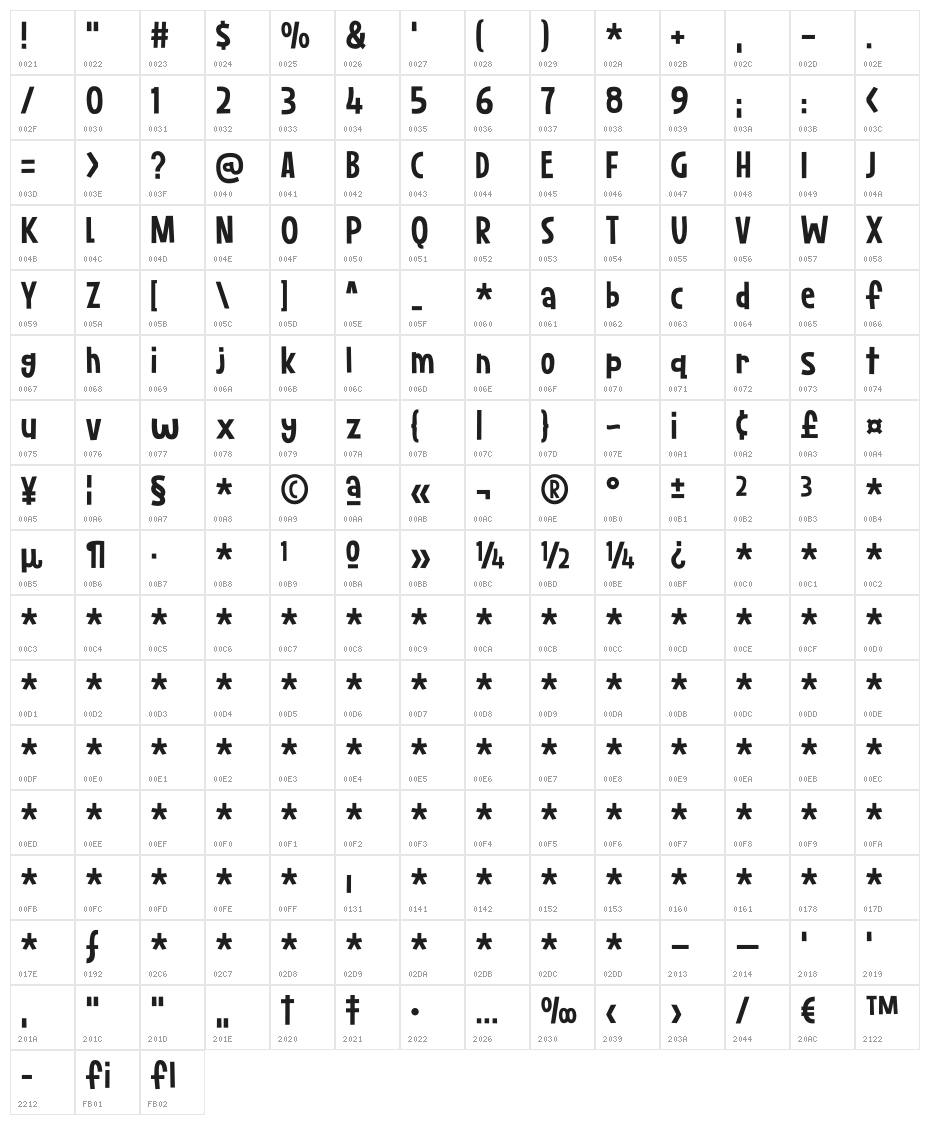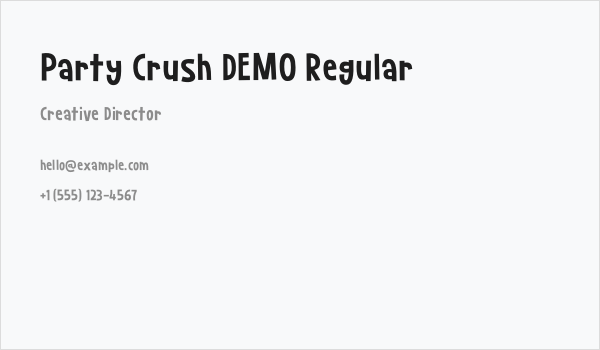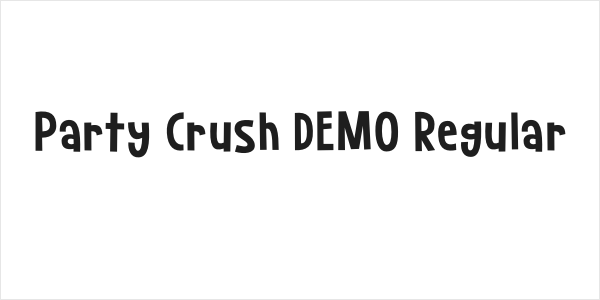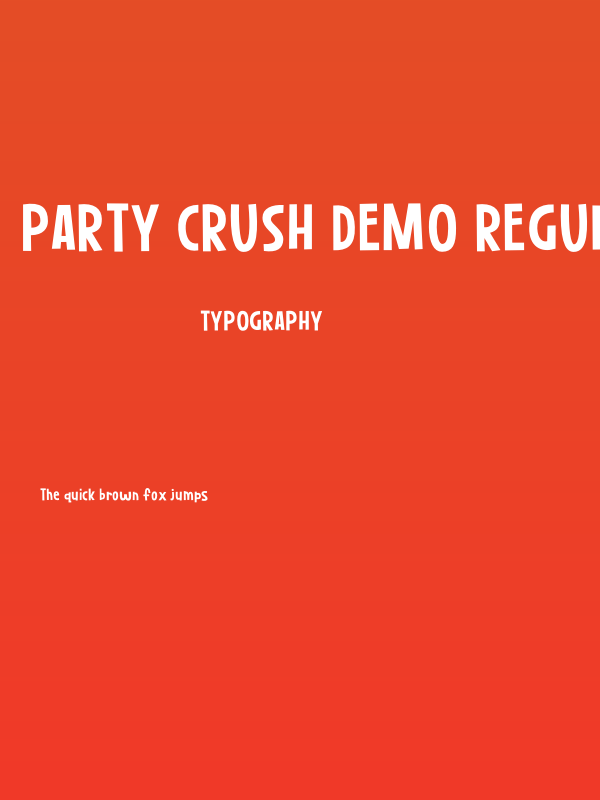
Party Crush DEMO Regular Font
Party Crush DEMO Regular Description
This font features a playful and bold style, characterized by its thick strokes and slightly irregular shapes. The letters have a hand-drawn quality, giving them a lively and informal appearance. The uppercase letters are tall and commanding, while the lowercase letters maintain a consistent height, adding to the font's cohesive look. The numbers are equally bold and easy to read, making them suitable for various applications. Special characters are included, maintaining the same playful style. Overall, this font is designed to stand out and convey a sense of fun and creativity.
| Overall Style | Playful, Creative |
| Use Case | Headlines, Posters, Invitations |
| Proposed Projects | Ideal for party invitations, children's books, playful branding, and creative posters. |